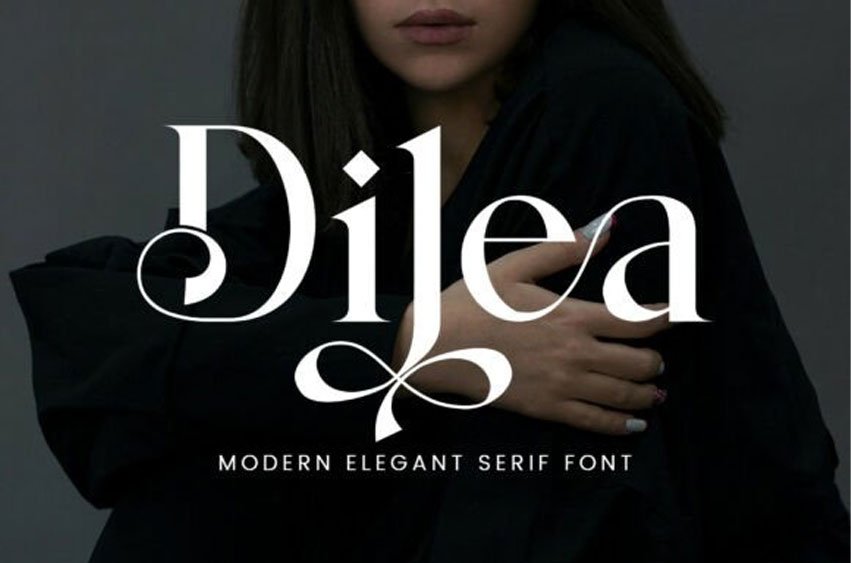
Dilea Font Elevate your design aesthetic to the height of sophistication with the Dilea font, a masterfully crafted typeface that embodies the spirit of contemporary high-fashion and luxury editorial design.
This Dilea typeface is defined by its breathtaking contrast, featuring razor-thin hairlines that seamlessly transition into bold, structural stems. The architecture of the Dilea font is a nod to the timeless elegance of Italian fashion houses, offering a look that is both authoritative and delicately graceful. Every character is balanced to perfection, ensuring that whether it is used for a single-letter monogram or a full-page headline, it maintains a sense of poise and prestige.
The versatility of the Dilea typeface makes it a “must-have” for designers working within the spheres of luxury branding, jewelry, and high-end lifestyle products. It is the perfect choice for a brand that wants to communicate exclusivity; imagine the Dilea font embossed on heavy-stock paper for a boutique hotel’s guest directory or serving as the primary identity for a premium skincare line.
This font thrives when paired with plenty of negative space and high-resolution photography, allowing its sharp serifs and elegant curves to create a focal point of pure class. Whether you are designing a sleek wine label, a minimalist fashion lookbook, or a grand wedding invitation, this typeface provides a foundation of “modern classic” style that never goes out of fashion.